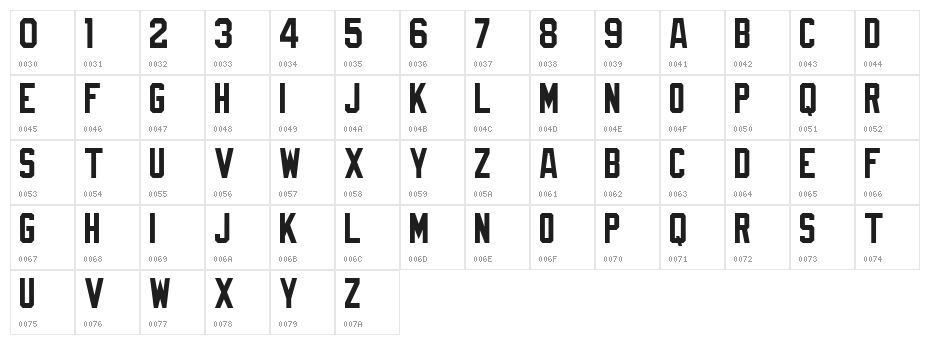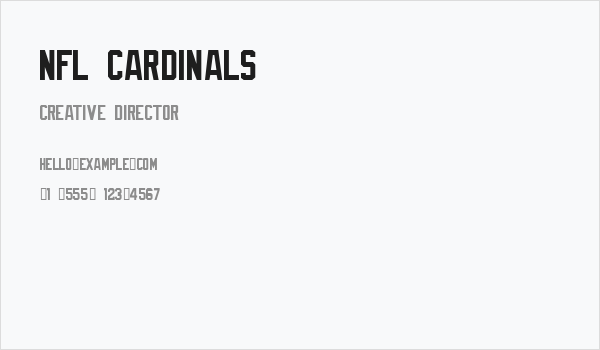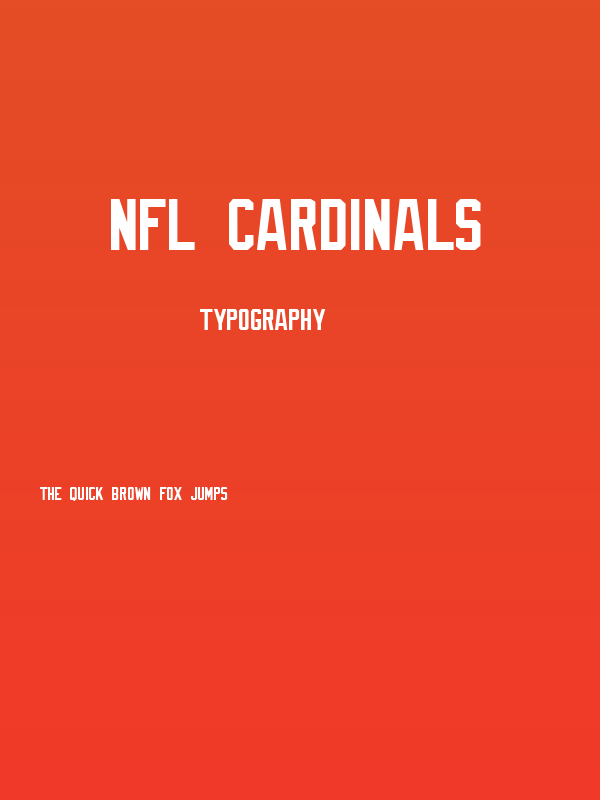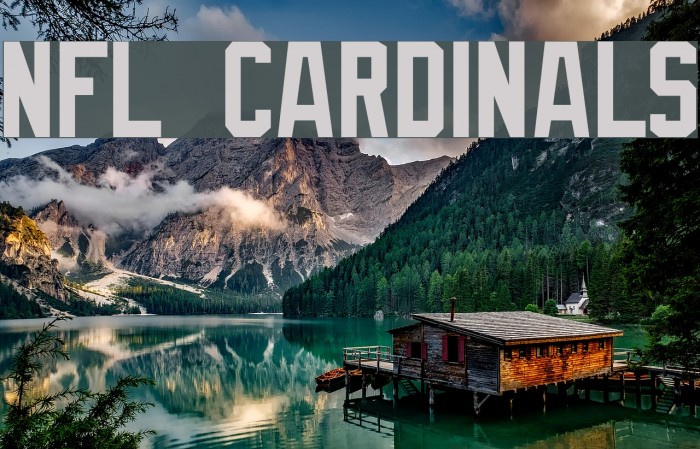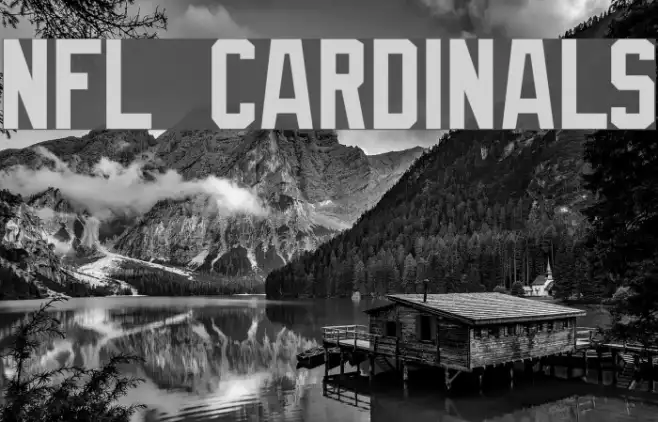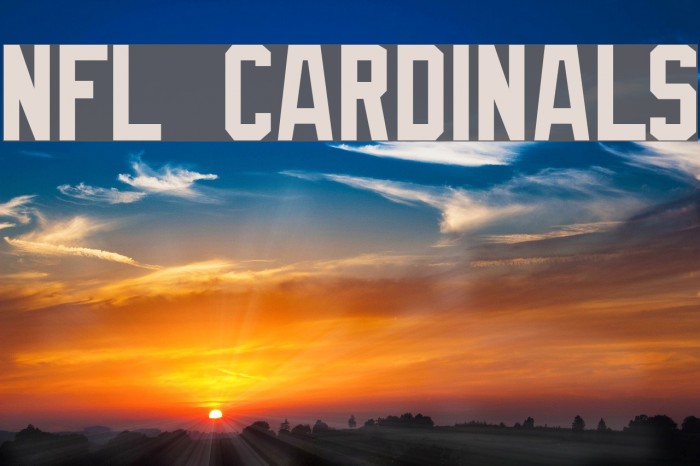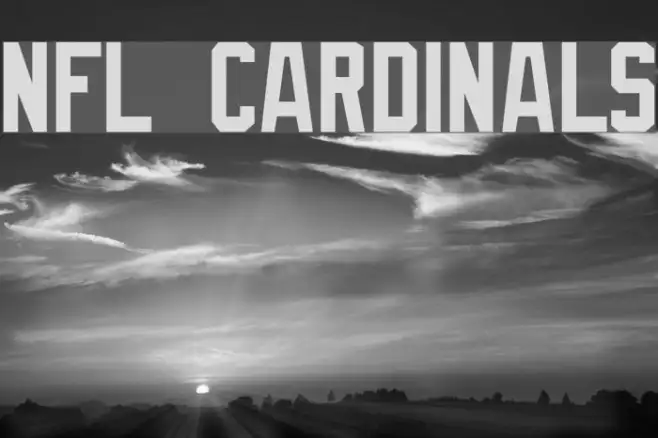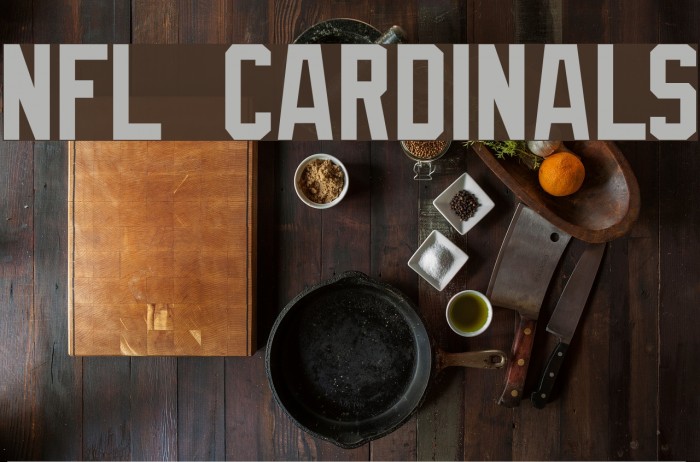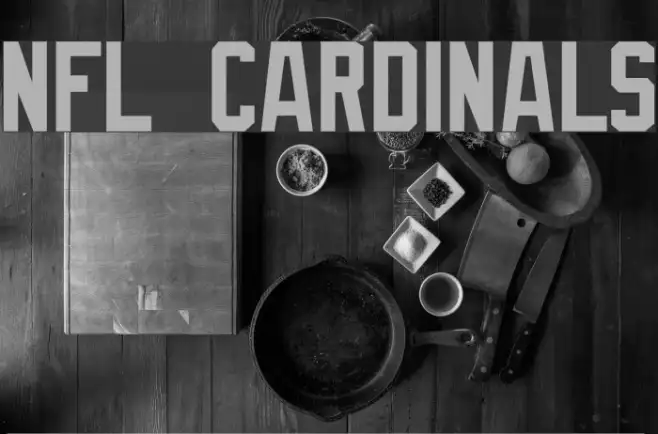
NFL Cardinals Font
NFL Cardinals Description
This font features bold, geometric letterforms with a strong, athletic presence. The uppercase letters are characterized by their blocky, angular shapes, which convey a sense of strength and stability. The numbers follow the same robust design, making them ideal for sports-related themes. The font's uniform stroke width and lack of serifs give it a modern and clean appearance, while the slightly condensed letterforms ensure efficient use of space. This style is reminiscent of traditional sports jerseys, making it perfect for projects that require a bold and impactful look.
| Proposed Projects | Ideal for sports team branding, athletic apparel design, posters, and event signage. |